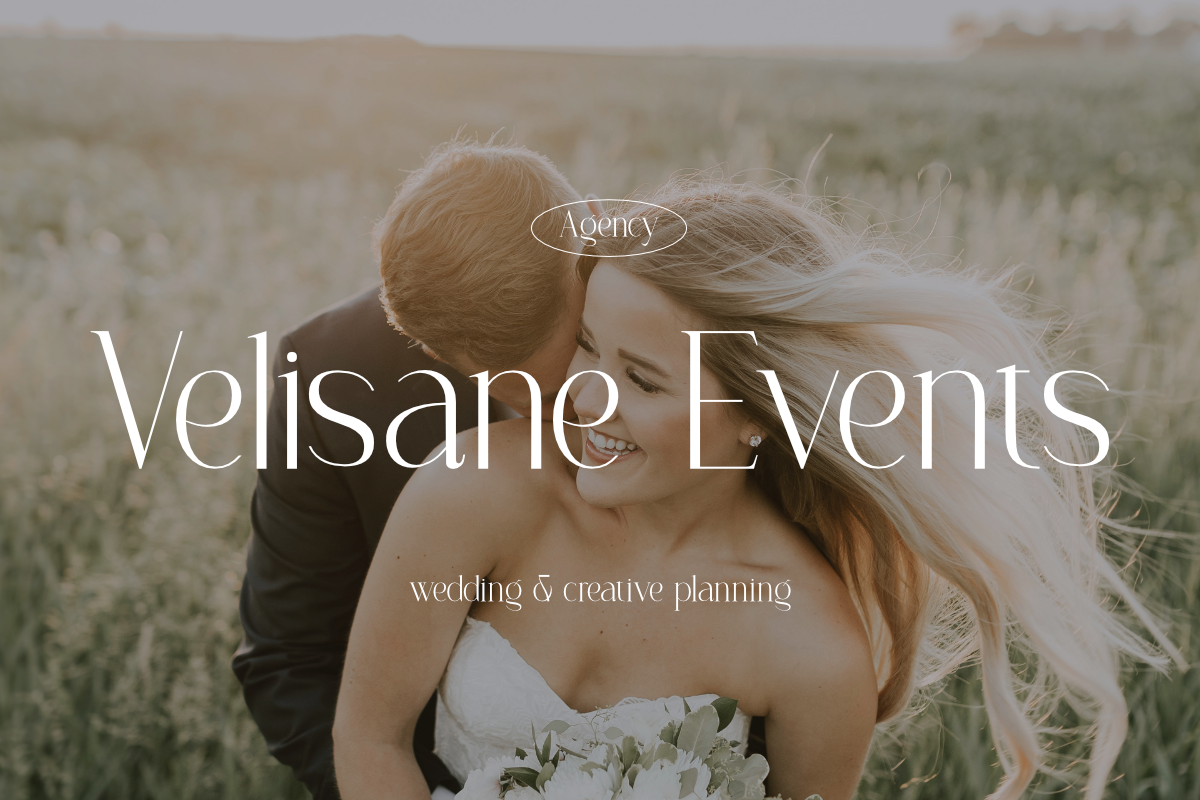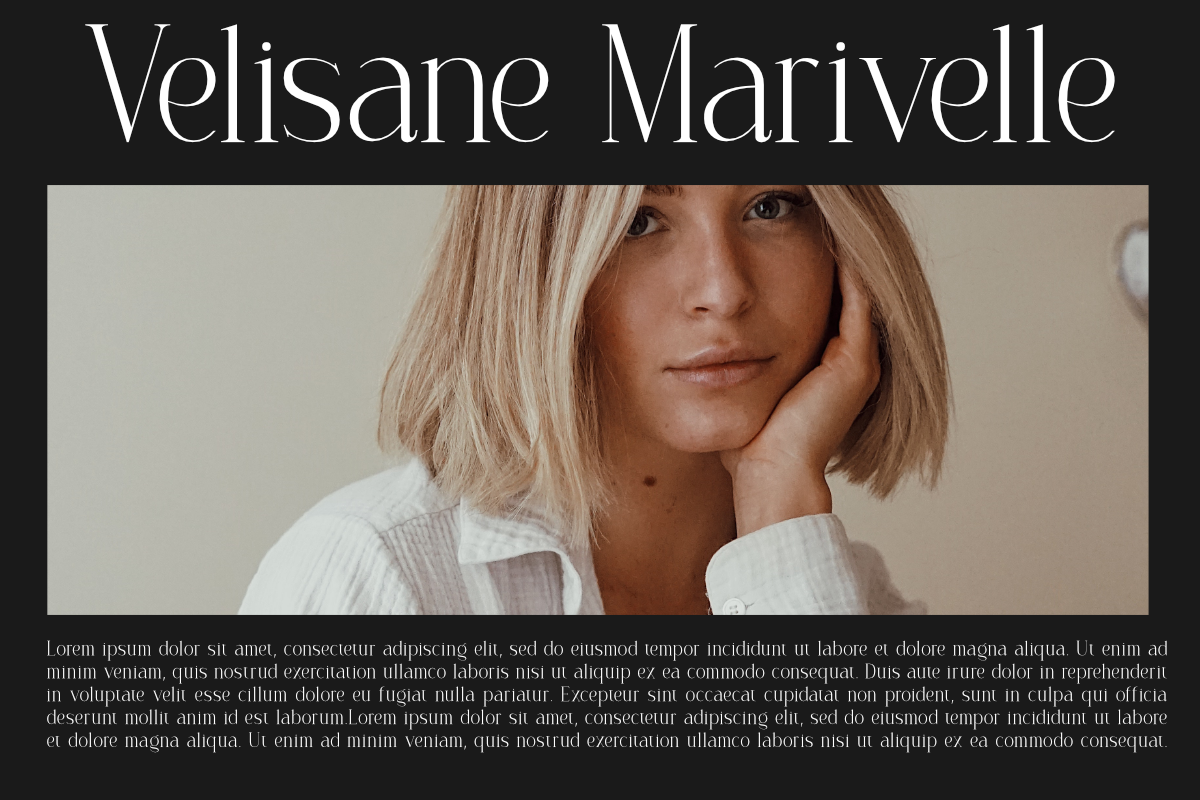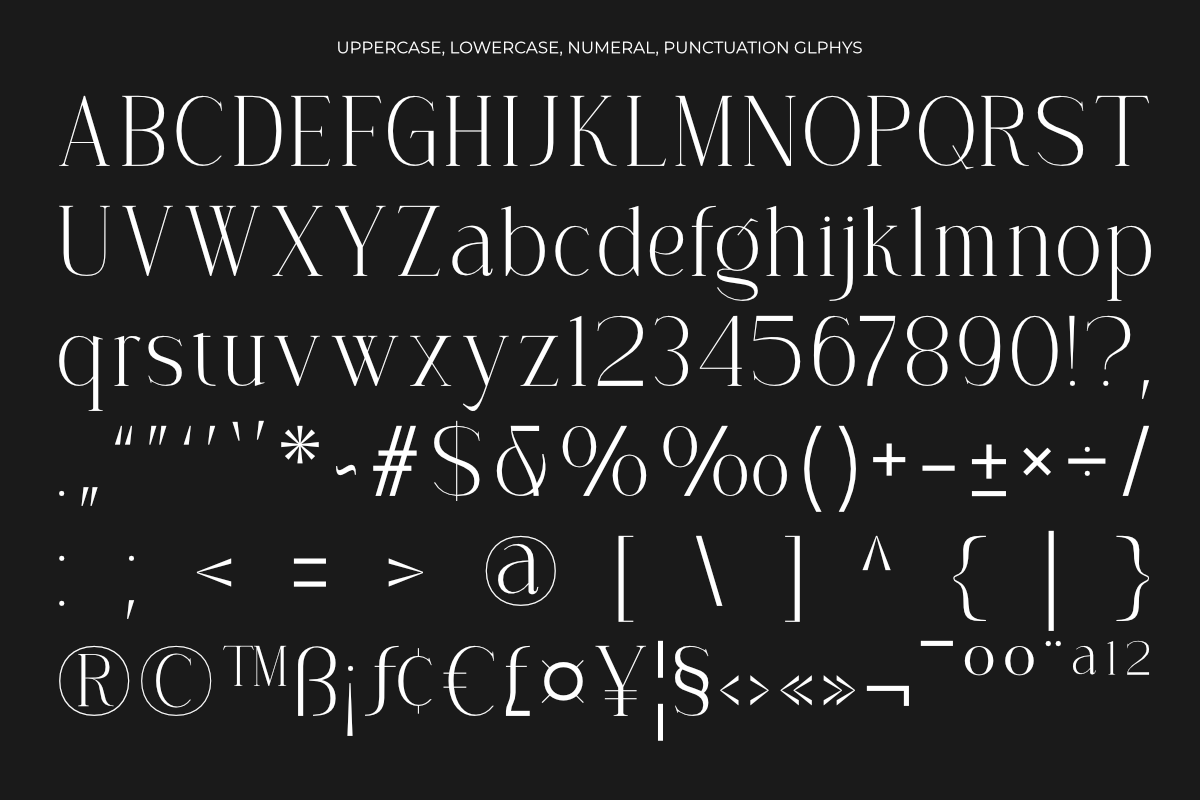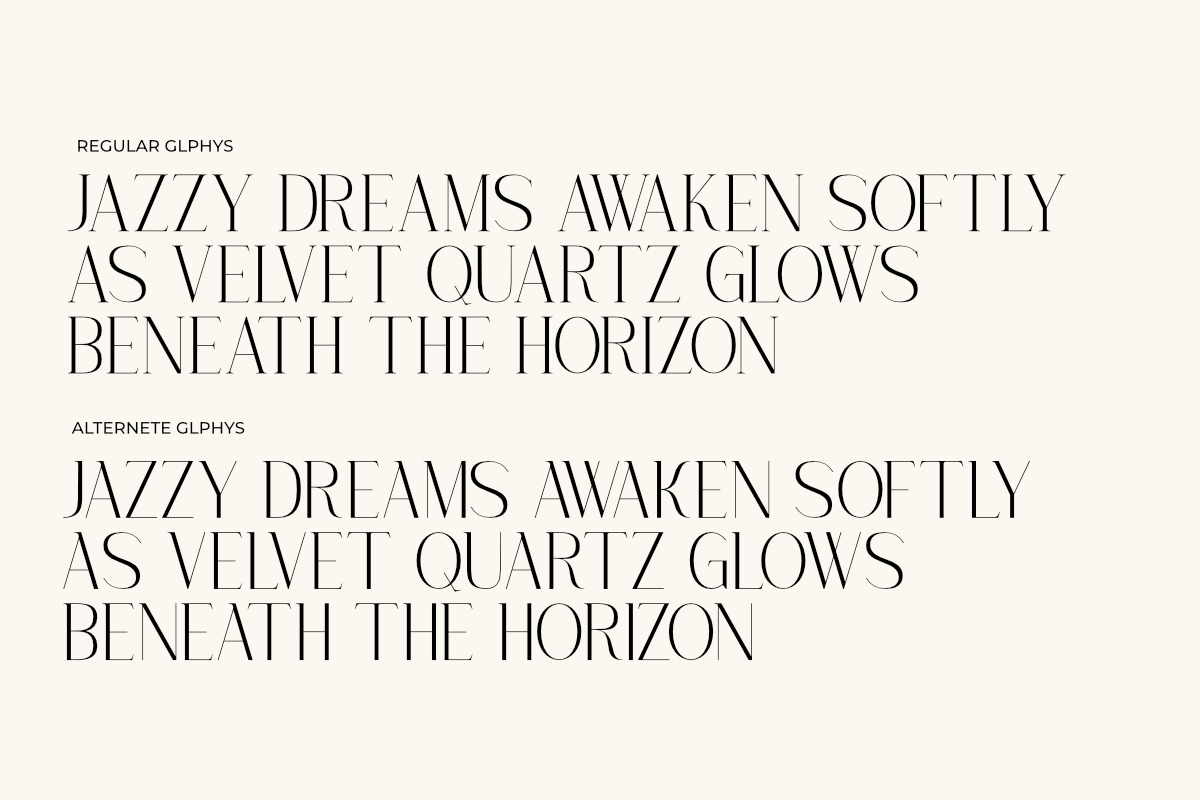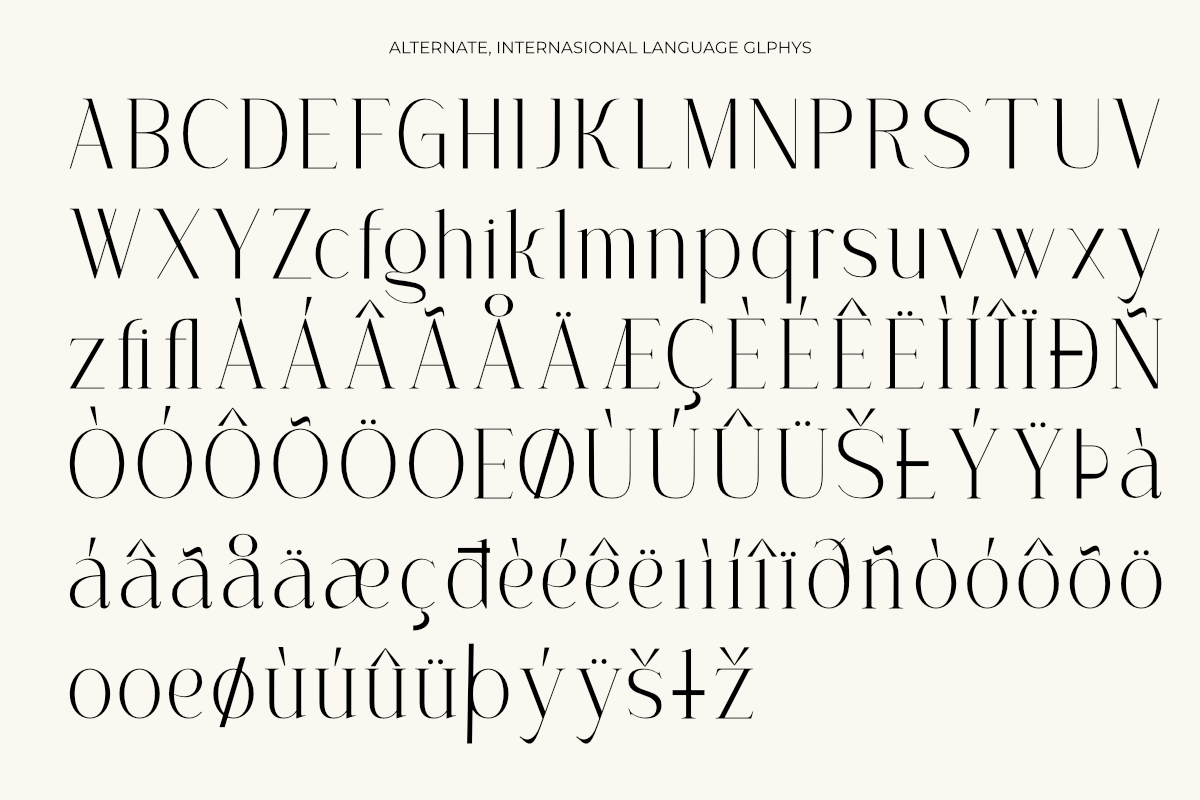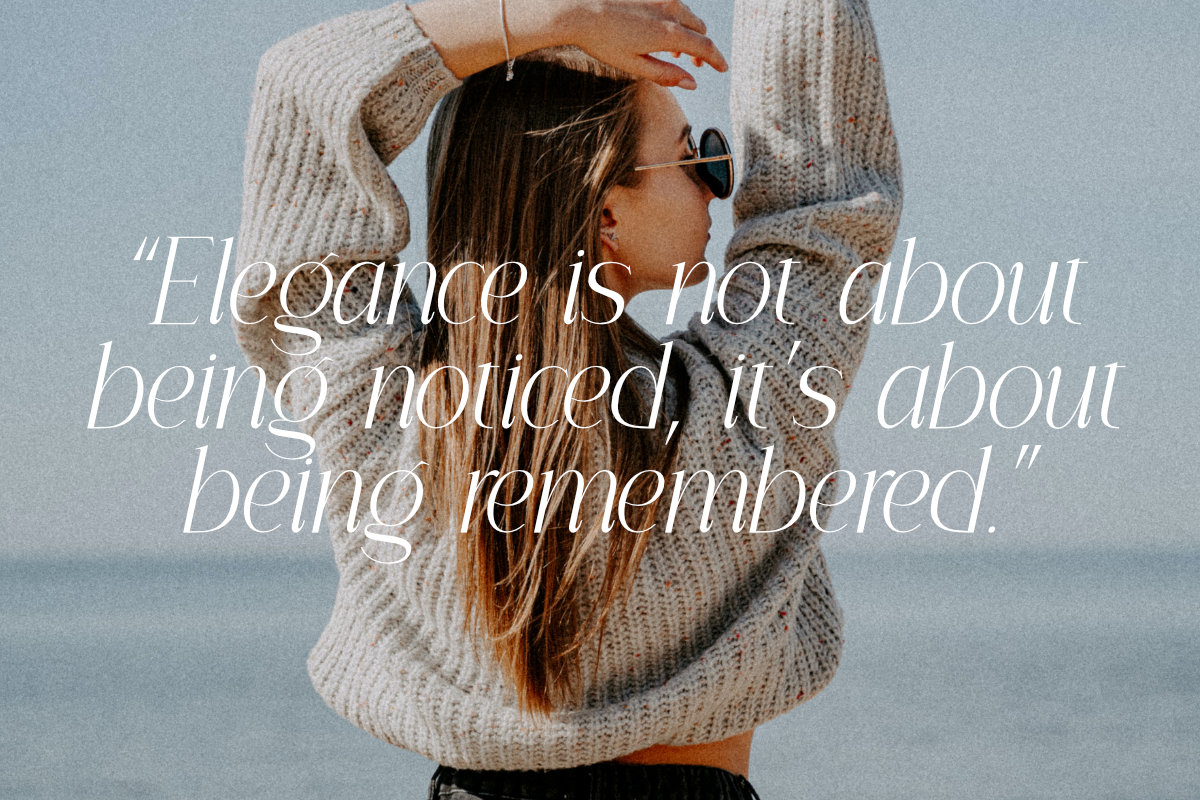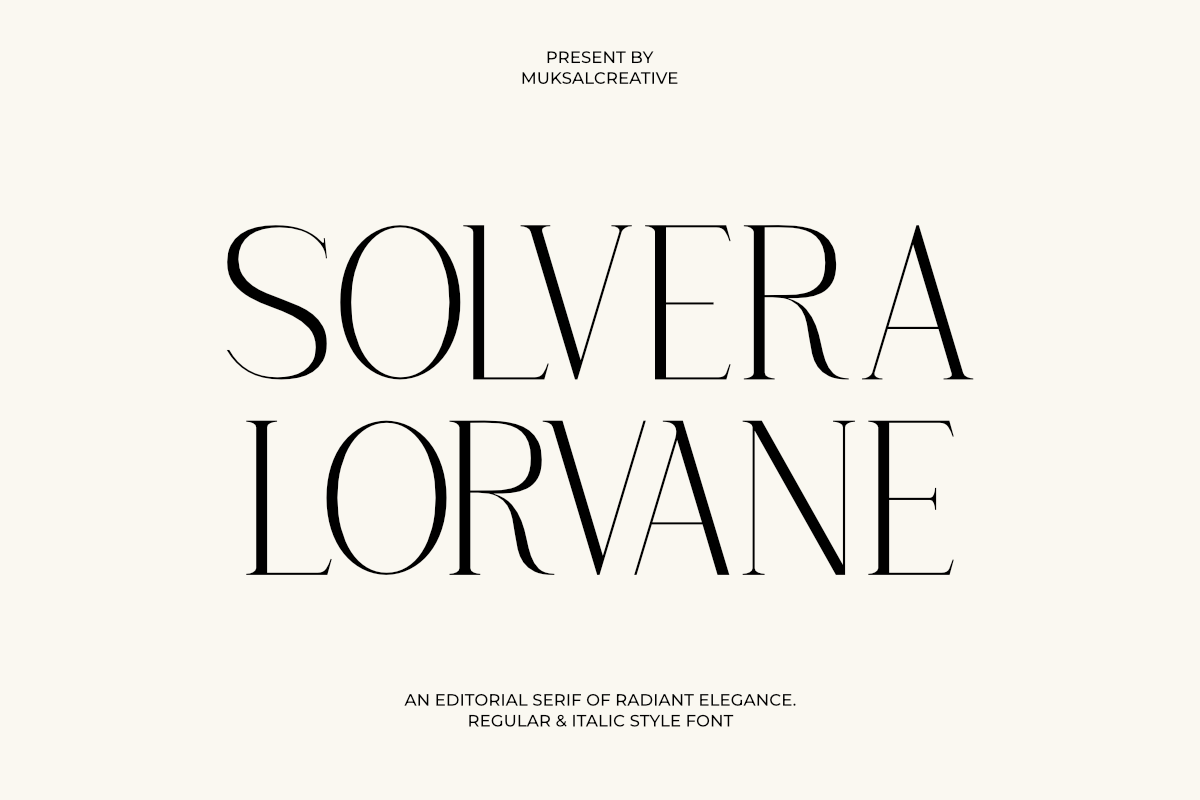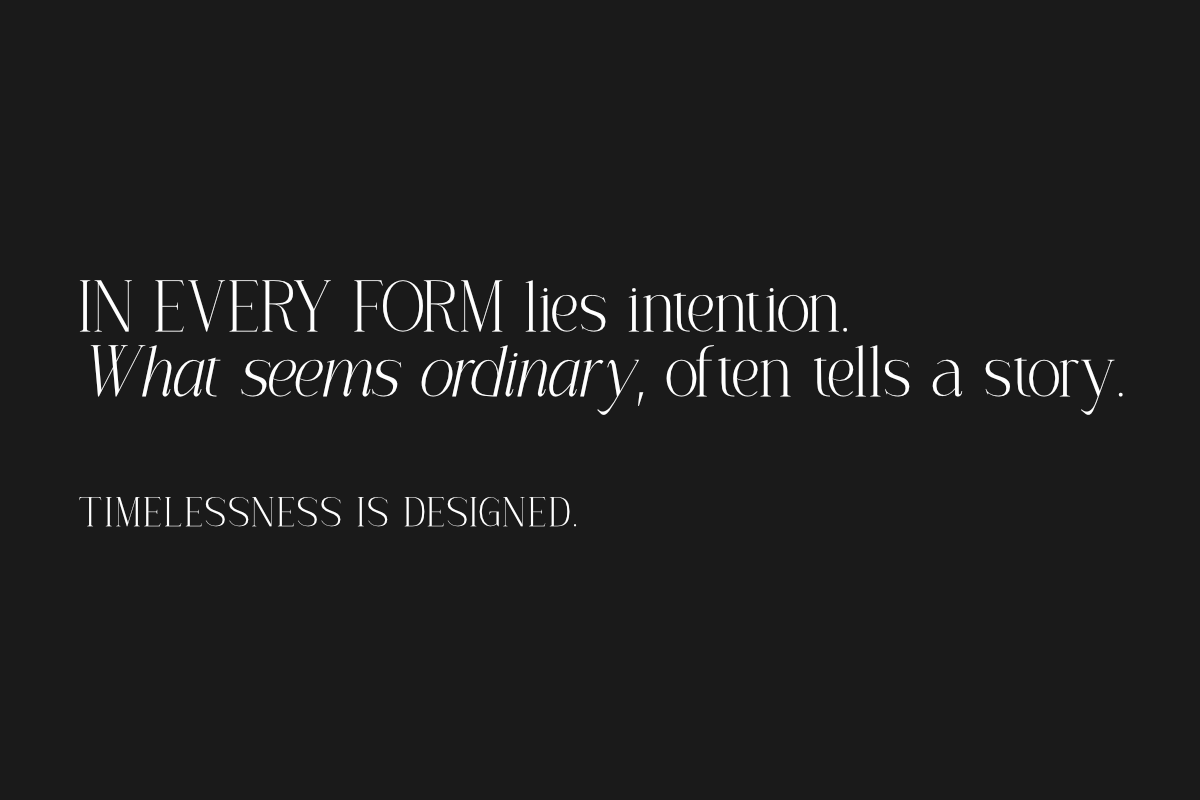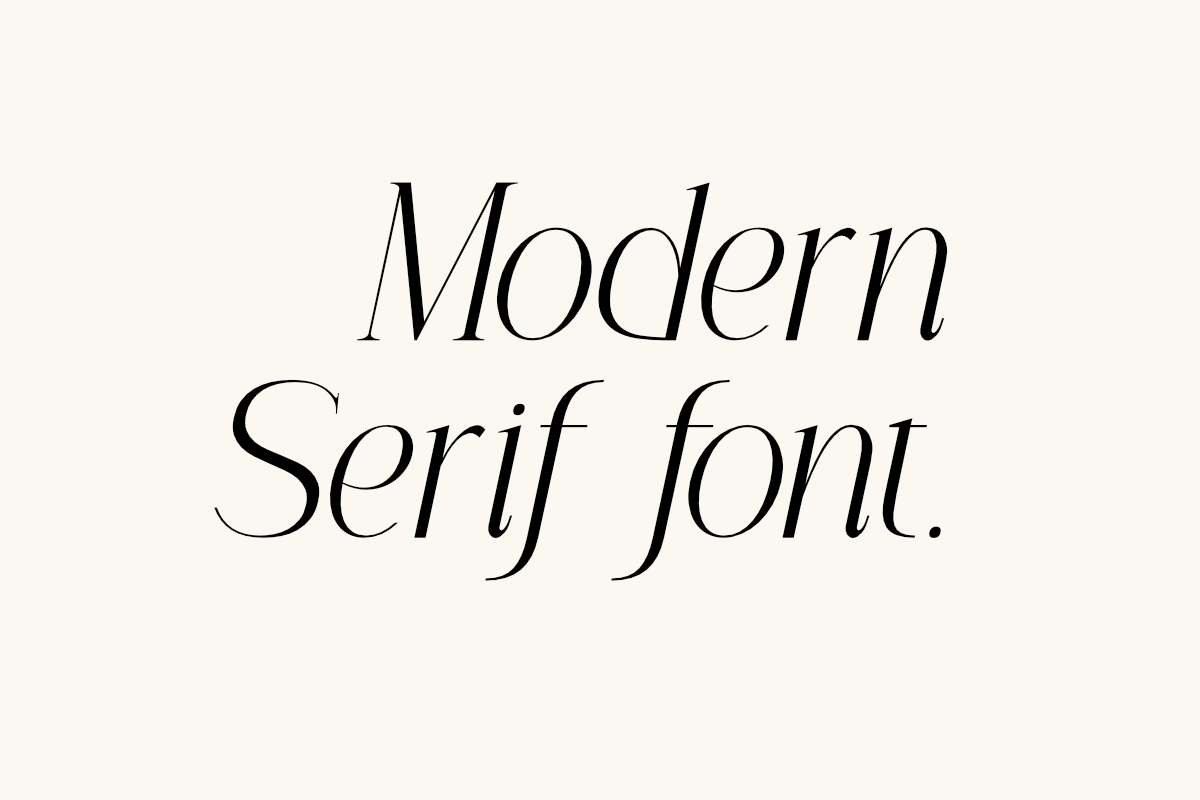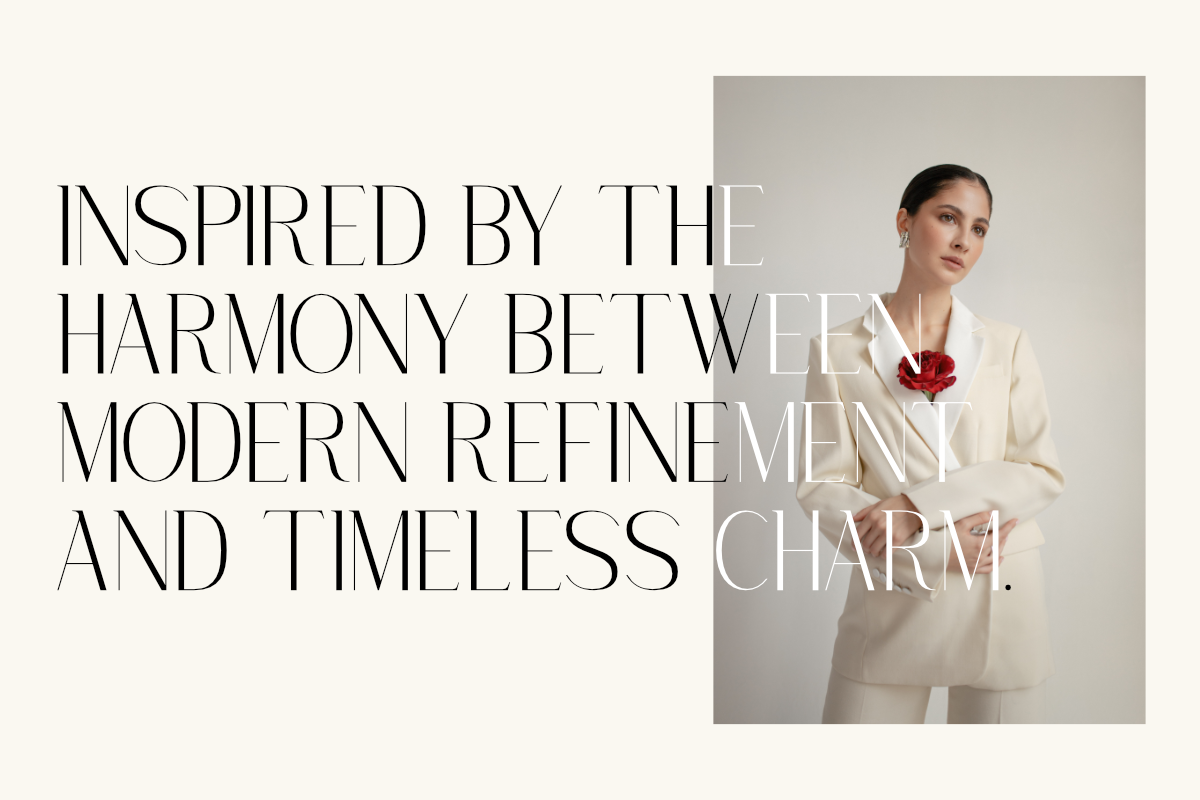
Solvera Lorvane - Elegant Serif Font
Solvera Lorvane is an elegant editorial serif that blends timeless sophistication with modern artistry. Designed for luxury branding, magazines, and creative projects, this typeface captures the essence of quiet confidence and refined beauty. Its balanced contrast, graceful curves, and delicate details make it perfect for high-end logos, wedding stationery, fashion editorials, and premium packaging.
✨ Features Font formats: OTF, TTF, WOFF Uppercase & lowercase letters Numbers & punctuation Multilingual support Stylistic alternates & ligatures Elegant high-contrast strokes Perfect for editorial design, branding, and invitations